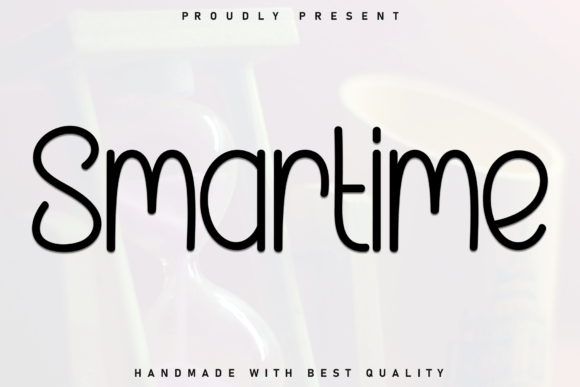
Smartime Font: The Ultimate Casual Handwritten Font for Authentic Designs
When it comes to creating authentic and engaging designs, the right font can make all the difference. Introducing Smartime Font, a casual handwritten font that radiates warmth and authenticity, perfect for adding a personal touch to your designs. In this article, we’ll dive into the world of Smartime Font, exploring its features, benefits, and uses, as well as provide tips on how to make the most of this versatile font.
What is Smartime Font?
Smartime Font is a carefully crafted casual handwritten font that embodies the charm of everyday handwriting. With its smooth strokes, relaxed curves, and naturally balanced letterforms, this font exudes a sense of warmth and approachability. Its clean and effortless style makes it perfect for a wide range of design applications, from quotes and branding to packaging and social media posts.
Key Features of Smartime Font
- Smooth Strokes: Smartime Font features smooth, fluid strokes that give it a natural and effortless look.
- Relaxed Curves: The font’s relaxed curves add to its casual and approachable feel, making it perfect for designs that require a friendly tone.
- Naturally Balanced Letterforms: Each letterform in Smartime Font is carefully crafted to be naturally balanced, ensuring that the font is easy to read and visually appealing.
- Clean and Approachable Style: The font’s clean and approachable style makes it perfect for a wide range of design applications.
Benefits of Using Smartime Font
So, why choose Smartime Font for your designs? Here are just a few benefits of using this versatile font:
- Authenticity: Smartime Font adds a personal and friendly touch to any design, making it perfect for brands that want to connect with their audience on a more personal level.
- Readability: The font’s smooth strokes and naturally balanced letterforms ensure that it’s easy to read, even at smaller sizes.
- Versatility: Smartime Font is perfect for a wide range of design applications, from quotes and branding to packaging and social media posts.
- Effortless Flow: The font’s effortless flow makes it perfect for designs that require a sense of movement and fluidity.
Uses of Smartime Font
So, what can you use Smartime Font for? Here are just a few ideas to get you started:
- Quotes: Smartime Font is perfect for quotes, adding a personal and friendly touch to inspirational and motivational text.
- Branding: The font is ideal for branding, helping to create a warm and approachable tone for your brand.
- Packaging: Smartime Font is perfect for packaging, adding a touch of personality to product labels and packaging.
- Social Media Posts: The font is great for social media posts, helping to create engaging and shareable content.
Tips for Using Smartime Font
Here are a few tips for getting the most out of Smartime Font:
- Use it with a clear purpose: Smartime Font is perfect for designs that require a personal and friendly touch. Use it with a clear purpose in mind, such as creating a warm and approachable tone for your brand.
- Experiment with different sizes: The font’s smooth strokes and naturally balanced letterforms ensure that it’s easy to read, even at smaller sizes. Experiment with different sizes to find the perfect fit for your design.
- Pair it with other fonts: Smartime Font is perfect for pairing with other fonts, helping to create a unique and visually appealing design.
- Don’t be afraid to get creative: The font’s effortless flow and versatile character make it perfect for creative and experimental designs. Don’t be afraid to get creative and try new things!
In conclusion, Smartime Font is a versatile and authentic casual handwritten font that’s perfect for adding a personal touch to your designs. With its smooth strokes, relaxed curves, and naturally balanced letterforms, this font exudes a sense of warmth and approachability. Whether you’re creating quotes, branding, packaging, or social media posts, Smartime Font is the perfect choice. So why not give it a try and see the difference it can make in your designs?
- What is Smartime Font? Smartime Font is a casual handwritten font that radiates warmth and authenticity, perfect for adding a personal touch to your designs.
- What are the key features of Smartime Font? The font features smooth strokes, relaxed curves, and naturally balanced letterforms, making it perfect for a wide range of design applications.
- What are the benefits of using Smartime Font? The font adds a personal and friendly touch to any design, making it perfect for brands that want to connect with their audience on a more personal level.
- What can I use Smartime Font for? The font is perfect for quotes, branding, packaging, and social media posts, adding a touch of personality to any design.